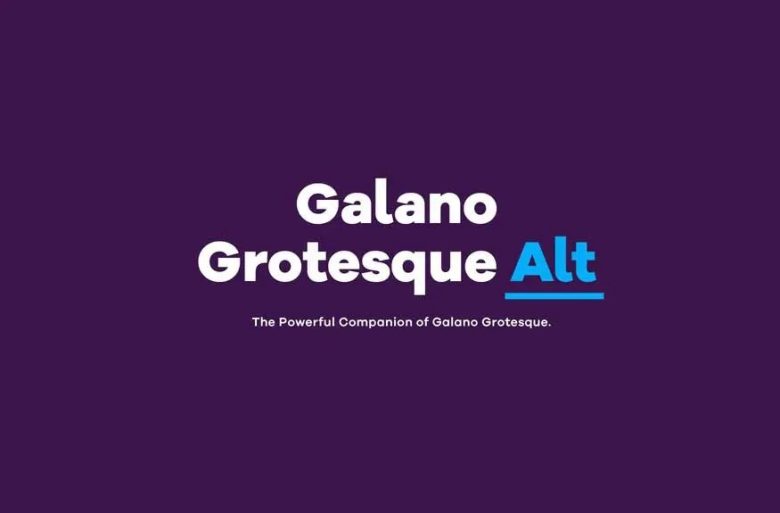
Galano Grotesque Font
Galano Grotesque is a geometric sans in the tradition of Futura, Avant Garde, Avenir and the like. It has a modern streak which is the result of a harmonization of width and height especially in the lowercase letters to support legibility.